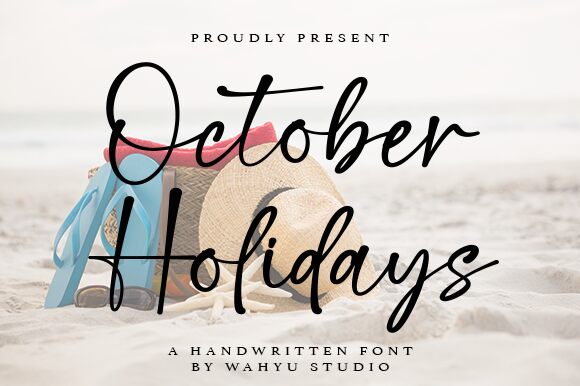
October Holidays
October Holidays, designed by Wahyu Studio, exudes the charm and personality of a truly handwritten script. Its fluid strokes and varying line thickness evoke a sense of casual elegance, embodying the spontaneity of an ink pen dancing across a page.
This font's authentic, personal touch adds warmth to any project, making it particularly suitable for invitations, greeting cards, and branding that aim to convey intimacy and individuality.
October Holidays offers a delightful blend of sophistication and approachability that can transform ordinary text into an engaging visual experience.